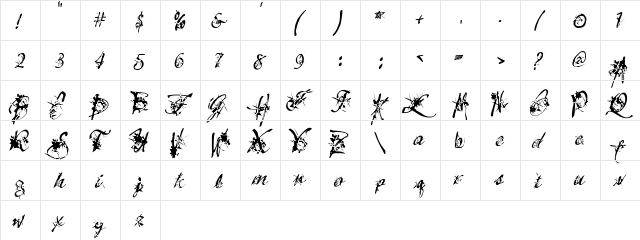
Sinister Attraction Regular
Design Context for Sinister Attraction Typeface
Sinister Attraction is a composed and adaptable typeface that performs quietly and consistently across a wide range of design contexts.